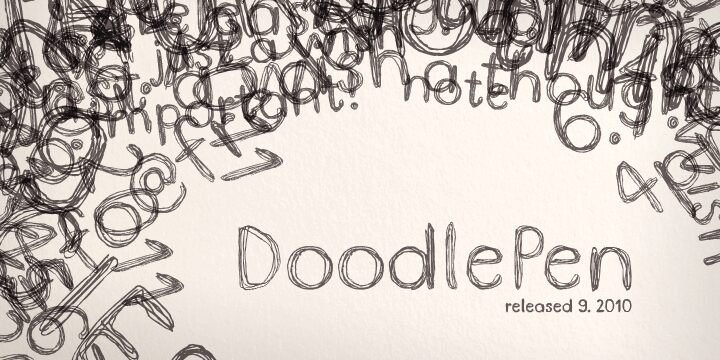
Doodle Pen by Ursula Hitz is a free brush font with loose, doubled strokes that resemble quick pen outlines. Its tall, uneven letters wobble between narrow and broad shapes, with overlaps and stray marks preserving the restless motion of a sketch.
Scribbled illustrations and rough marker textures share its improvised line quality. That connection makes it useful for music posters, skate merchandise, and youth event graphics. Comic publishing and street-art branding are especially convincing settings, since the scratchy lines already belong to those visual genres.